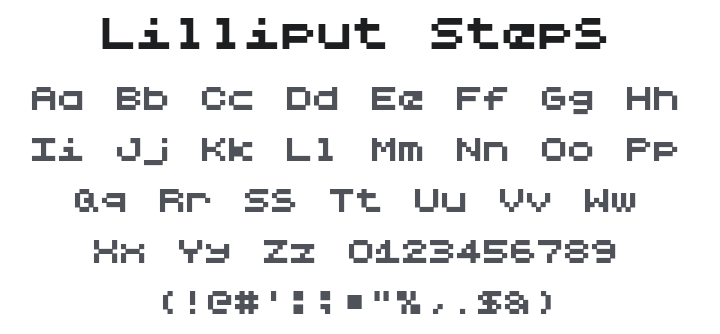
Lilliput Steps Font
About Lilliput Steps
Lilliput Steps is a tiny, clean pixel bitmap typeface inspired by the dialogue text in the classic SNES RPG Earthbound — small, friendly square letterforms with a pure, low-resolution innocence that instantly recalls 16-bit gaming. Its charming simplicity gives it a warm, nostalgic clarity. Perfect for retro game UIs, indie game development, pixel-art projects, chiptune aesthetics, and anything channeling beloved 16-bit era personality.